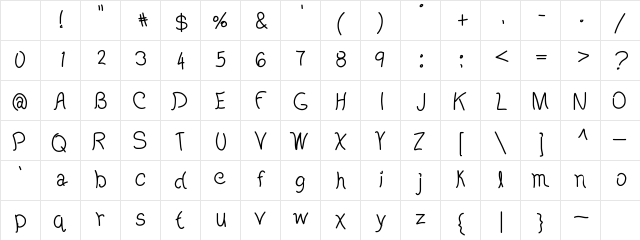
ParisByDaylight is a composed and adaptable typeface that performs quietly and consistently across a wide range of design contexts. Its slender proportions lend an understated elegance to any composition.